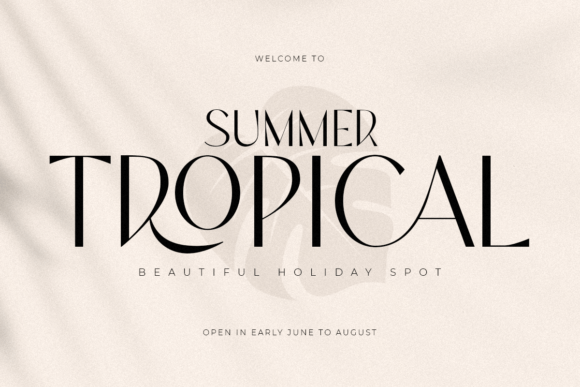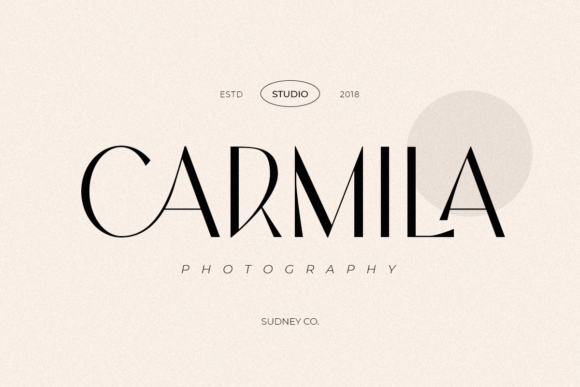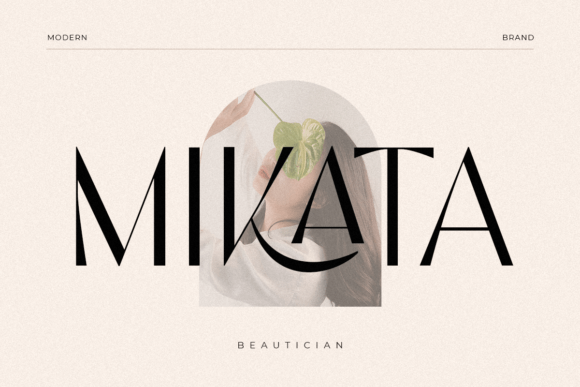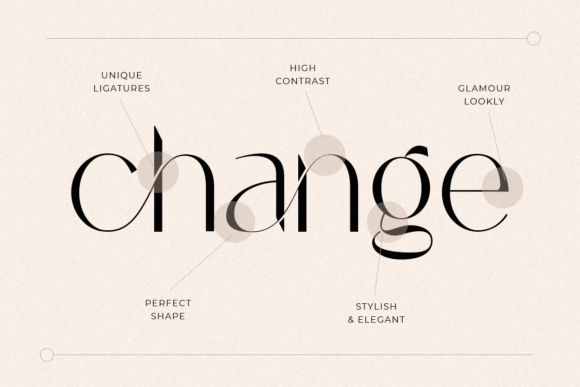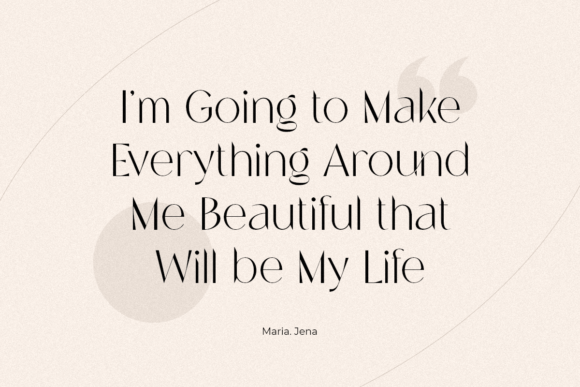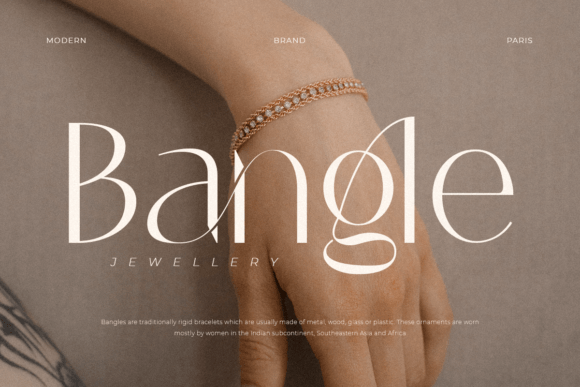
Introduction to Rebeca Font
Rebeca is a stylish sans-serif font that epitomizes modern elegance and clarity.
With its clean lines and balanced proportions, itโs perfect for professional branding, sleek editorial layouts, and contemporary web design Elevate your projects with the refined simplicity of Rebeca, where sophistication meets functionality.
Key Features of Rebeca Font